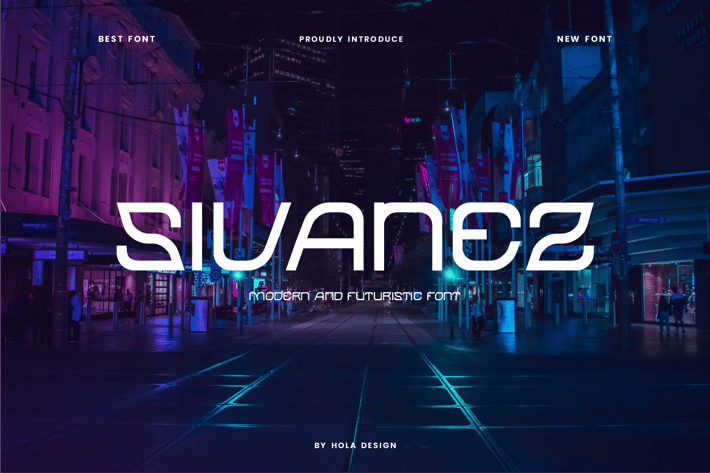
Sivanez - Modern Futuristic Font
Sivanez - Modern Futuristic Font Font is unique . Ready to use for your design like labeling, movie sceen, poster, movie title, gigs, album covers, logos, and much more.